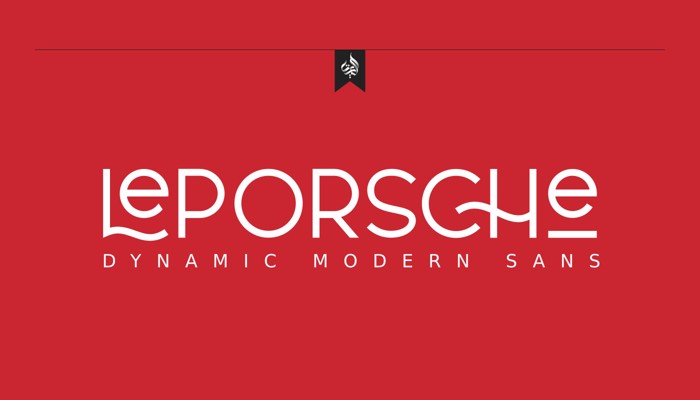
Le Porsche Font
To get results like the preview just type LEPoRSCHe.2
Le Porsche Font is a modern display sans font with a bold look and powerful. It’s a dynamic and modern sans serif font with a cool look. Constructed from solid and sharp lines who coexist with circular elements in order to create and harmonious contrast and a characteristic stylish look and feel.